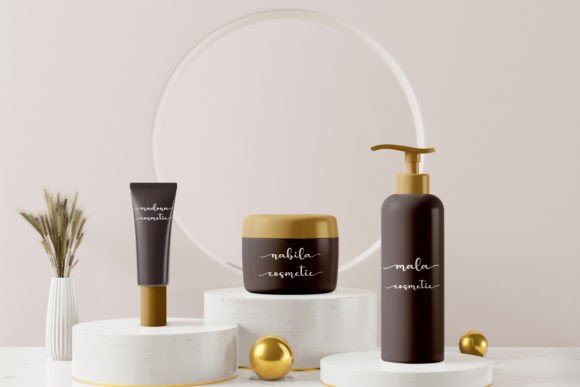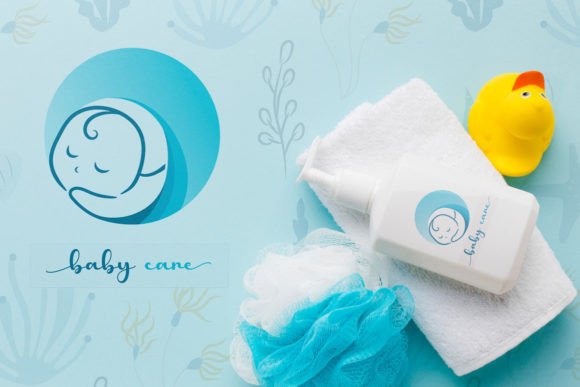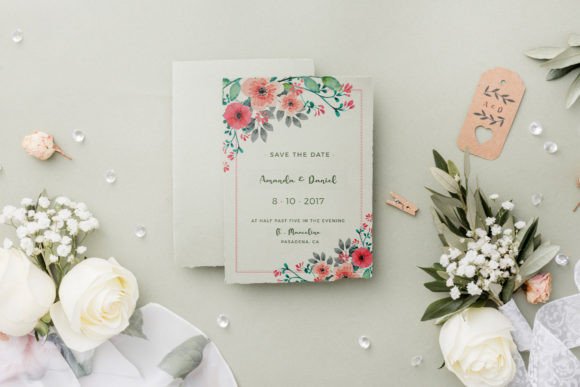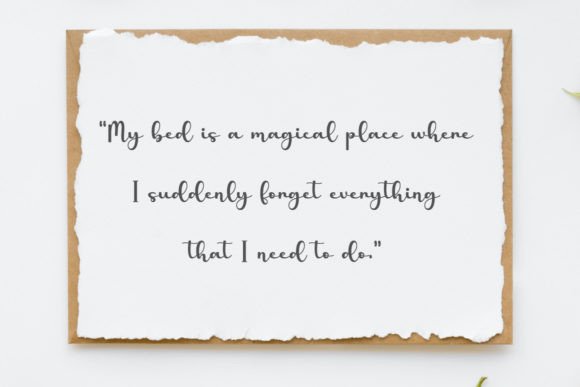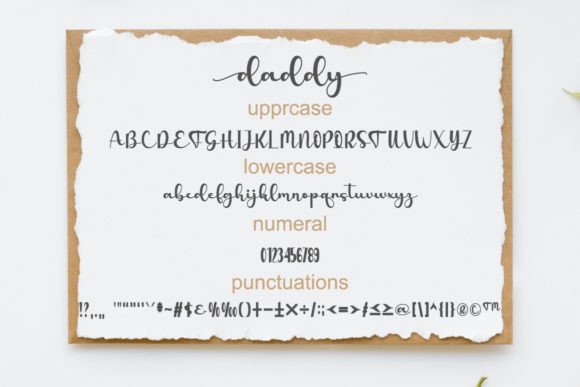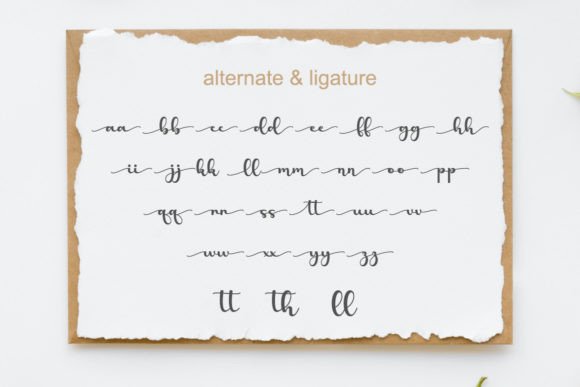
Daddy Font: The Enchanting Handwritten Typeface for Designers and Crafters
Are you a designer or crafter looking for a unique and versatile font to elevate your creative projects? Look no further than the Daddy Font! This enchanting handwritten font is perfect for a wide range of applications, from greeting cards to headlines, and is sure to add a touch of personality and whimsy to your designs.
What is Daddy Font?
Daddy Font is a beautifully crafted handwritten typeface that boasts a charming and elegant feel. Its unique character set and swashes make it an ideal choice for designers and crafters who want to add a personal touch to their work. Whether you’re creating greeting cards, invitations, posters, or headlines, Daddy Font is the perfect choice.
Key Features of Daddy Font
- PUA Encoded: Daddy Font is PUA (Private Use Area) encoded, which means you can access all of the glyphs and swashes with ease! This feature makes it simple to use the font and customize it to your needs.
- Handwritten Style: The font features a beautiful handwritten style that is both elegant and playful.
- Versatile: Daddy Font can be used for a wide range of applications, from greeting cards to headlines, and is perfect for designers and crafters who want to add a personal touch to their work.
- Wide Spectrum of Applications: The font’s versatility makes it suitable for various design projects, including:
- Greeting cards
- Invitations
- Posters
- Headlines
- Logos
- Branding materials
Benefits of Using Daddy Font
So, why should you choose Daddy Font for your design projects? Here are just a few benefits of using this enchanting handwritten font:
- Adds a Personal Touch: Daddy Font’s unique character set and swashes make it easy to add a personal touch to your designs.
- Enhances Creativity: The font’s versatility and range of applications make it perfect for designers and crafters who want to push their creative boundaries.
- Easy to Use: Daddy Font is PUA encoded, making it simple to access all of the glyphs and swashes.
- High-Quality Design: The font is beautifully crafted, with a focus on detail and design quality.
In conclusion, Daddy Font is an enchanting handwritten font that is perfect for designers and crafters who want to add a personal touch to their creative projects. Its versatility, range of applications, and ease of use make it an ideal choice for anyone looking to elevate their designs. With its PUA encoding, beautiful character set, and swashes, Daddy Font is sure to become a go-to font in your design arsenal.